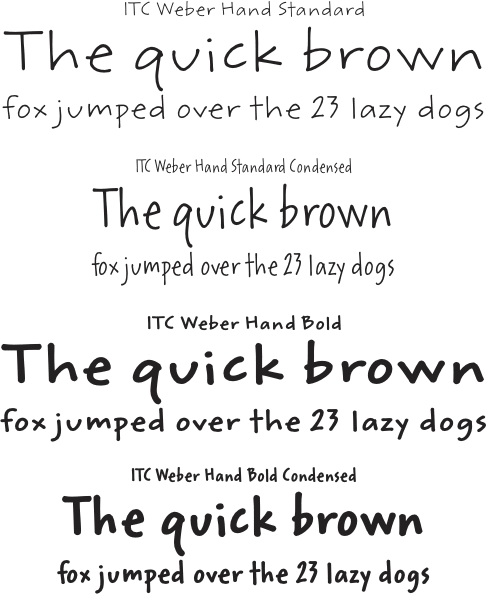
Lettering has always been a passion for Lisa Beth Weber. In the first grade, her favorite subject was penmanship. When she eventually got her first checkbook,Weber was disappointed to learn that her signature was supposed to be the same on every check. She happily says, “I brake for cool signs’ should be my bumper sticker.” Back in 1999, when her ITC Weber Hand™ typeface was made available to graphic designers, it quickly became one of ITC’s more popular handwriting fonts. Used for everything from restaurant menus to billboards, the single-weight design was missing something though: more versions. The light weight needed a bold companion and condensed variations to give the typeface greater versatility. A decade after her typeface’s release, Weber decided to extend her design into a complete family. However, being an accomplished and sought-after artist, writer, musician, illustrator, photographer and craftsperson left her little time to devote to typeface design. Monotype Imaging’s type designers stepped in to help, and Weber was able to develop a new bold and two additional condensed weights to round out the family. Although this typeface design mimics handwriting, Weber Hand has an underlying decorous, gently structured quality. This, along with additional weights, makes for a remarkably useful typeface family in a relatively small package. Equally at home in headlines and short blocks of text copy, Weber Hand can be used in brochures, advertisements, logotypes, periodicals and even package design. Weber comments, “Thanks to Monotype Imaging’s support, ITC Weber Hand has grown into a suite of warm, friendly designs that are well-suited for a wide range of applications – even bumper stickers!”Monotype Imaging Inc. - END USER LICENSE AGREEMENT